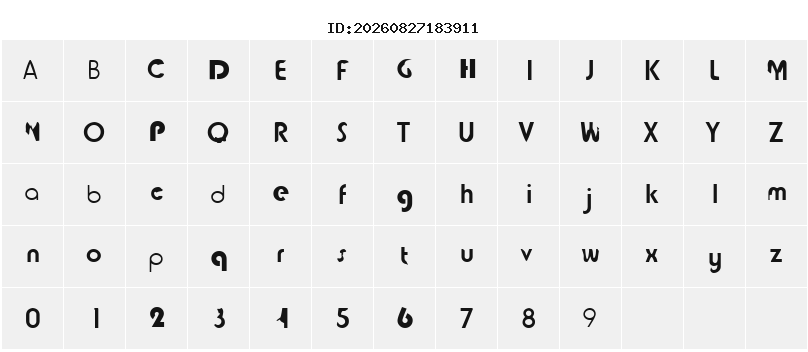
• Font Name: tjockebo
About tjockebo.ttf
tjockebo.ttf is a modern, elegant sans-serif font designed for ultimate readability and visual harmony. Perfect for branding, headlines, web design, and print materials.